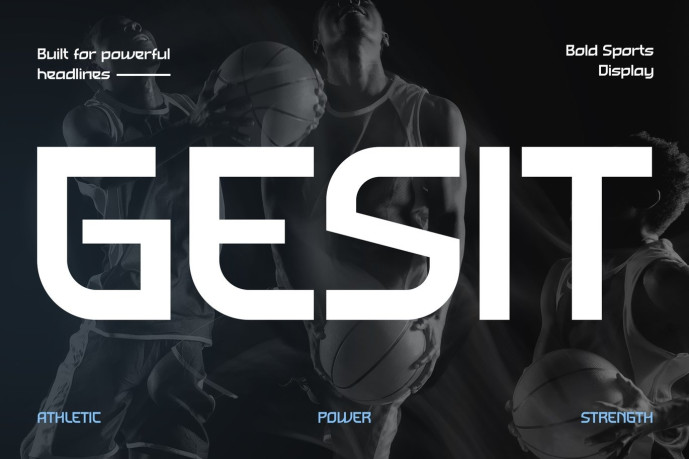
Gesit – Modern Sport Font
GESIT – Modern Sport Font
GESIT is a bold sport display font designed for high-impact branding, athletic campaigns, and performance-focused visuals. Featuring wide geometric letterforms, sharp corners, and strong proportions, it delivers a confident, energetic look that instantly commands attention. Built for modern sports communication, GESIT adds power and movement to every headline while keeping your designs clean and highly readable.
Whether you’re designing for fitness brands, esports teams, sporting events, YouTube thumbnails, posters, gym promotions, or social media campaigns, GESIT creates a bold visual identity that stands out across both print and digital media.
Turn every headline into a statement with GESIT. From sports branding and event posters to gaming graphics, fitness promotions, app interfaces, and social media content, this dynamic display typeface helps your message appear stronger, faster, and more memorable.